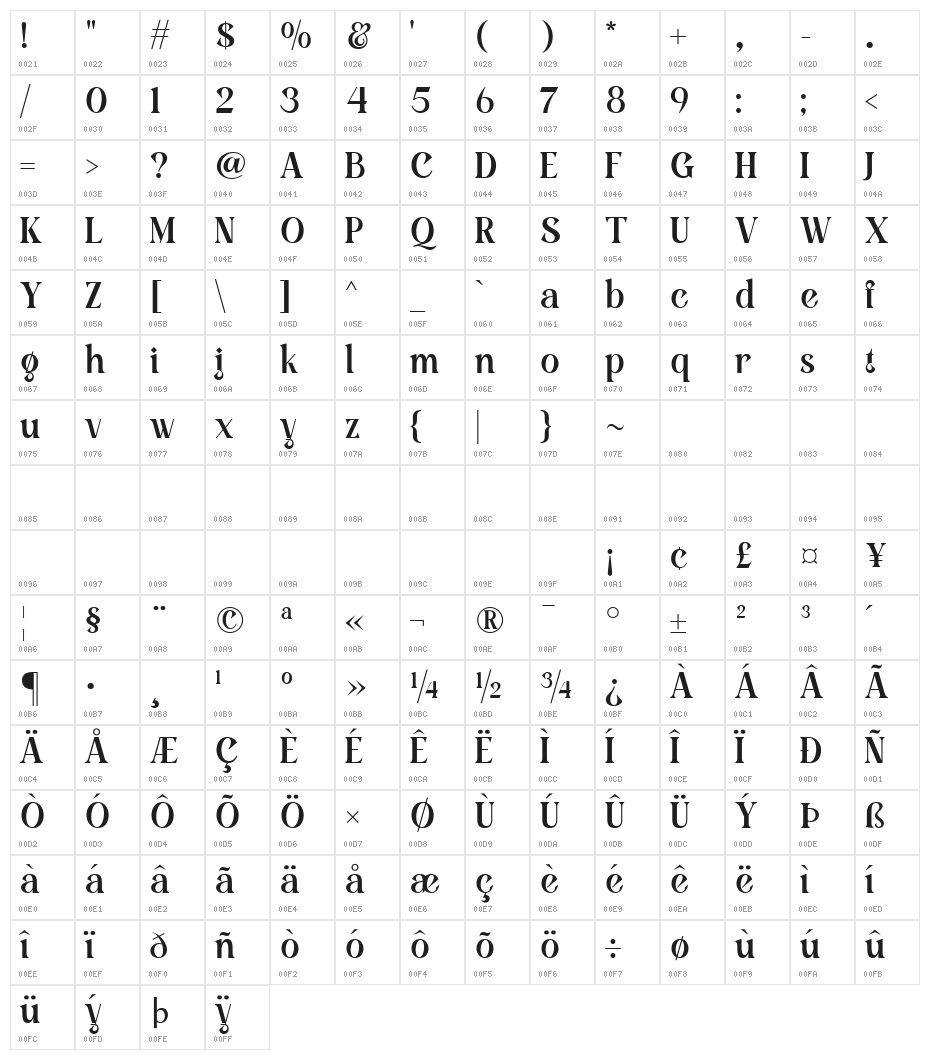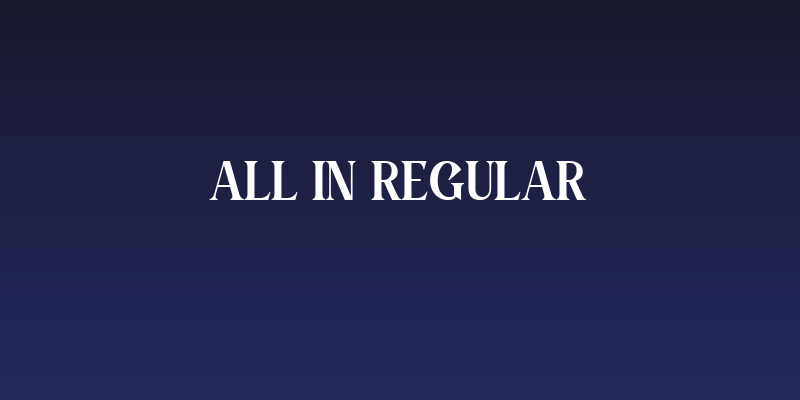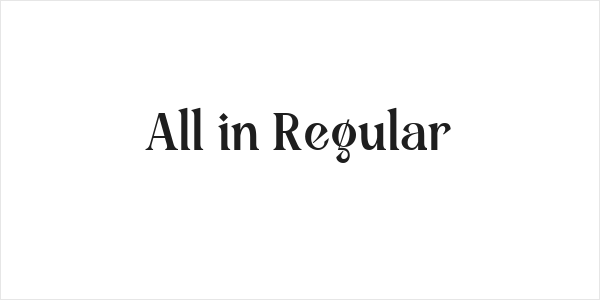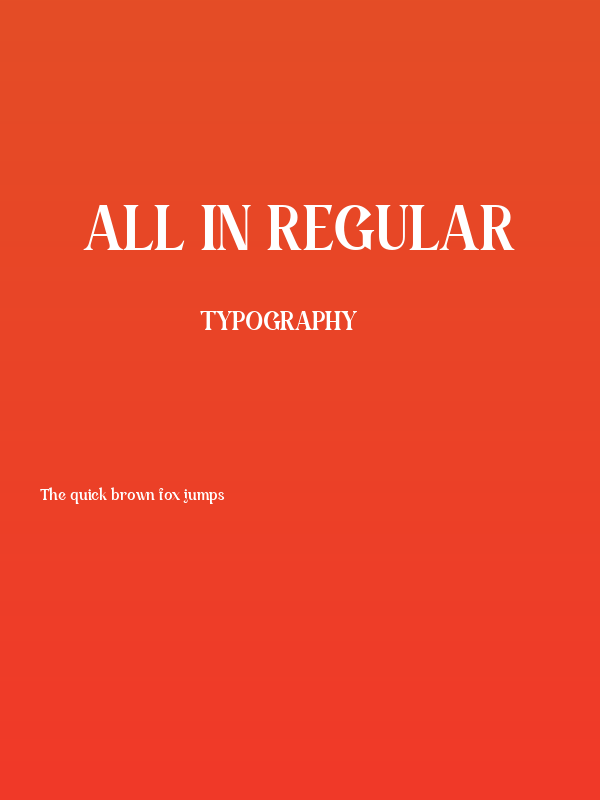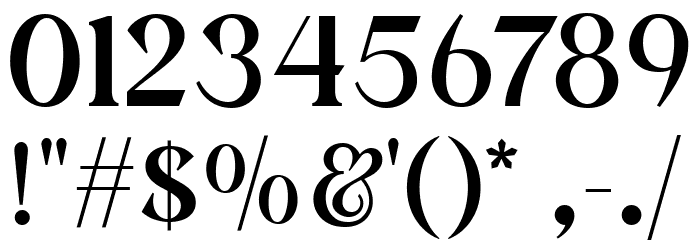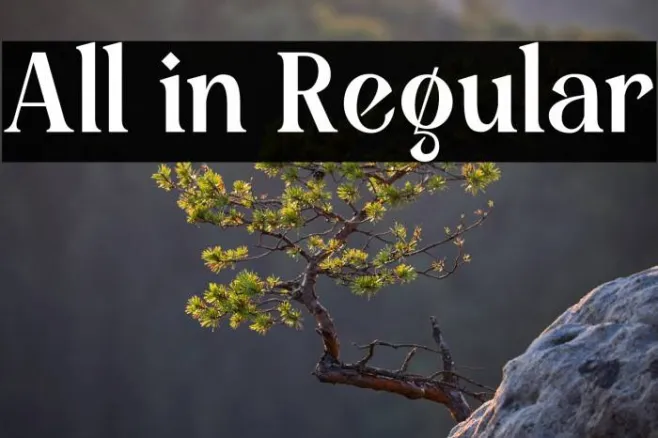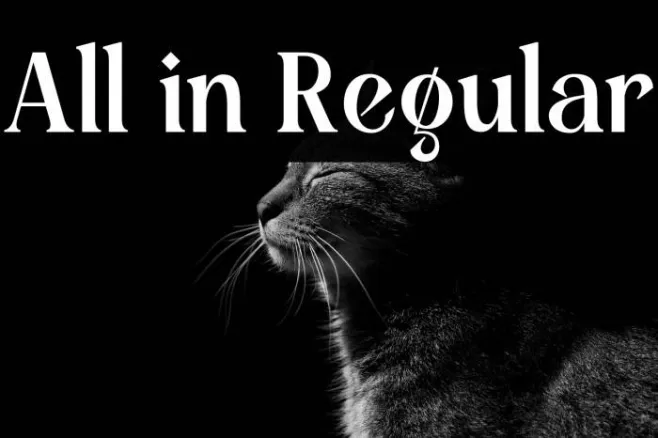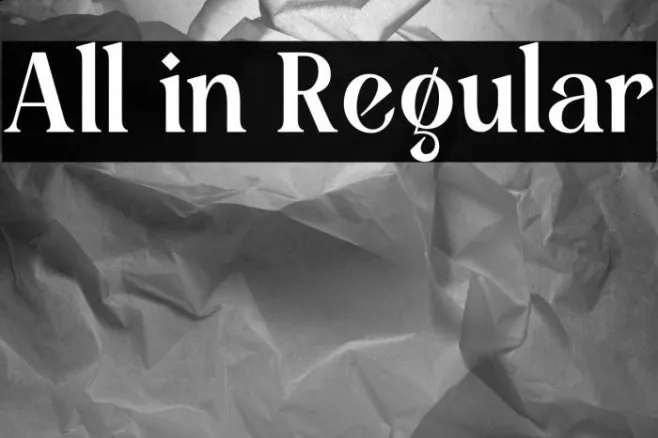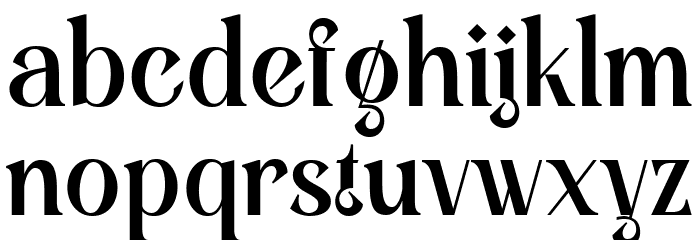
All in Regular Font
All in Regular Description
This font exhibits a classic serif style with a modern twist, characterized by its elegant and sophisticated appearance. The uppercase letters are bold and commanding, with distinct serifs that add a touch of formality. The lowercase letters maintain a consistent style, offering a harmonious blend of curves and sharp edges. The numerals are clear and easily readable, making them suitable for various applications. Special characters are well-integrated, maintaining the overall aesthetic of the font. The design is versatile, suitable for both digital and print media, offering a timeless appeal that can enhance any project.
| Proposed Projects | Ideal for book covers, editorial design, branding, and formal invitations. |